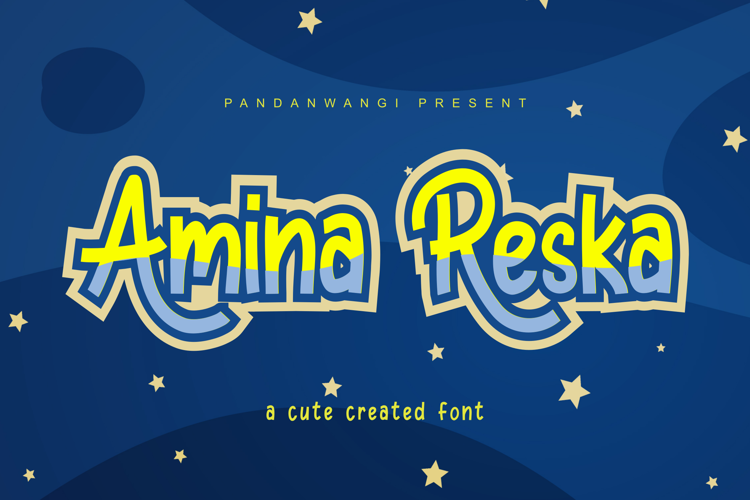
Amina Reska Font
Amina Reska is a cute, colorful, and friendly display font. Get inspired by its authentic feel and use it to make beautiful wedding invitations, beautiful stationery art, eye-catching social media posts, and cute greeting cards.